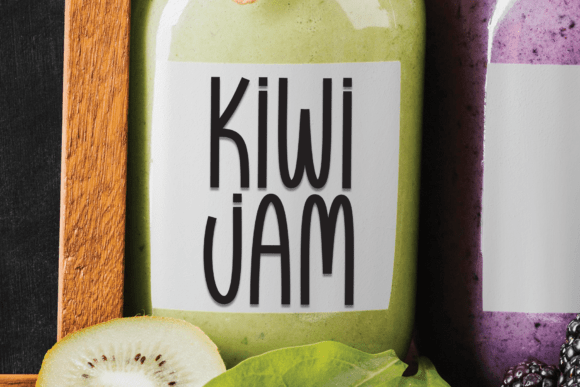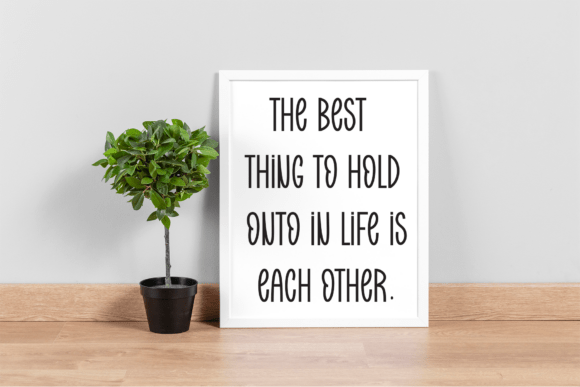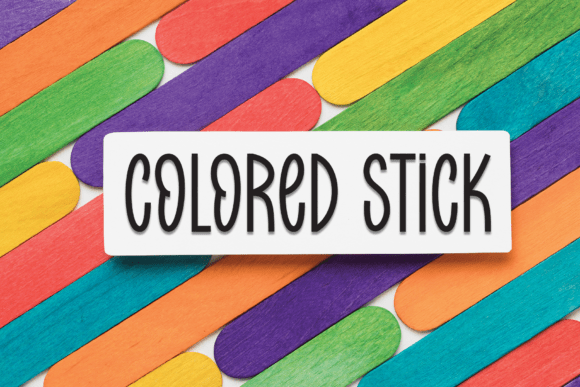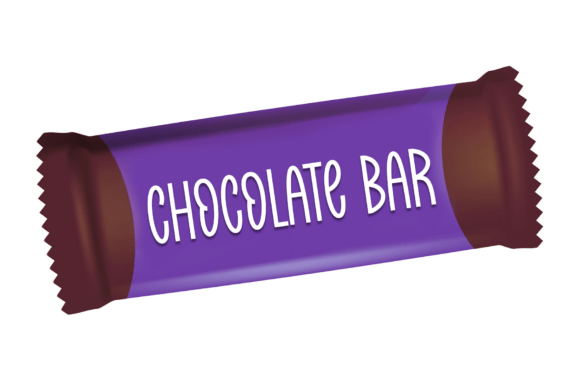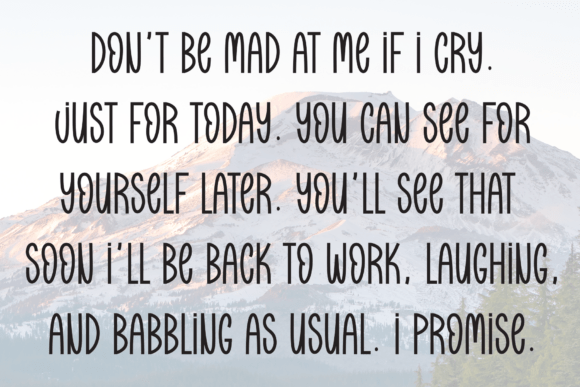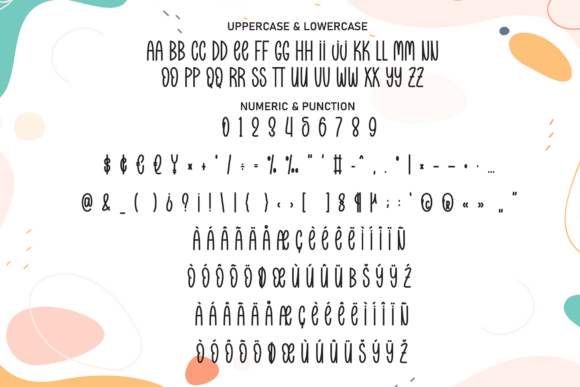
Introduction to Absolute Samantha Font Font
Fonts play a crucial role in design, and the Absolute Samantha Font font is a typeface that brings both character and versatility to any project. Whether you’re working on a branding project, a website, or a print design, the Absolute Samantha Font font offers a unique style that can elevate your work.
A charming handmade display font that brings a touch of warmth and personality to every project.
With organic strokes and an imperfectly perfect look, this font captures the essence of handcrafted design Perfect for greeting cards, packaging, DIY projects, logos, and anything that needs a creative and authentic flair.
Key Features of Absolute Samantha Font Font
Why Choose Absolute Samantha Font Font?
The Absolute Samantha Font font is more than just a typeface – it’s a design tool that helps you communicate your message with style and clarity. Its unique character set and versatile design make it suitable for a wide range of applications, from elegant invitations to bold headlines.
With its carefully crafted letterforms and balanced proportions, the Absolute Samantha Font font ensures readability and visual appeal across all mediums.
What makes Absolute Samantha Font font special?
The Absolute Samantha Font font stands out with its unique design, exceptional readability, and versatility across various design applications.